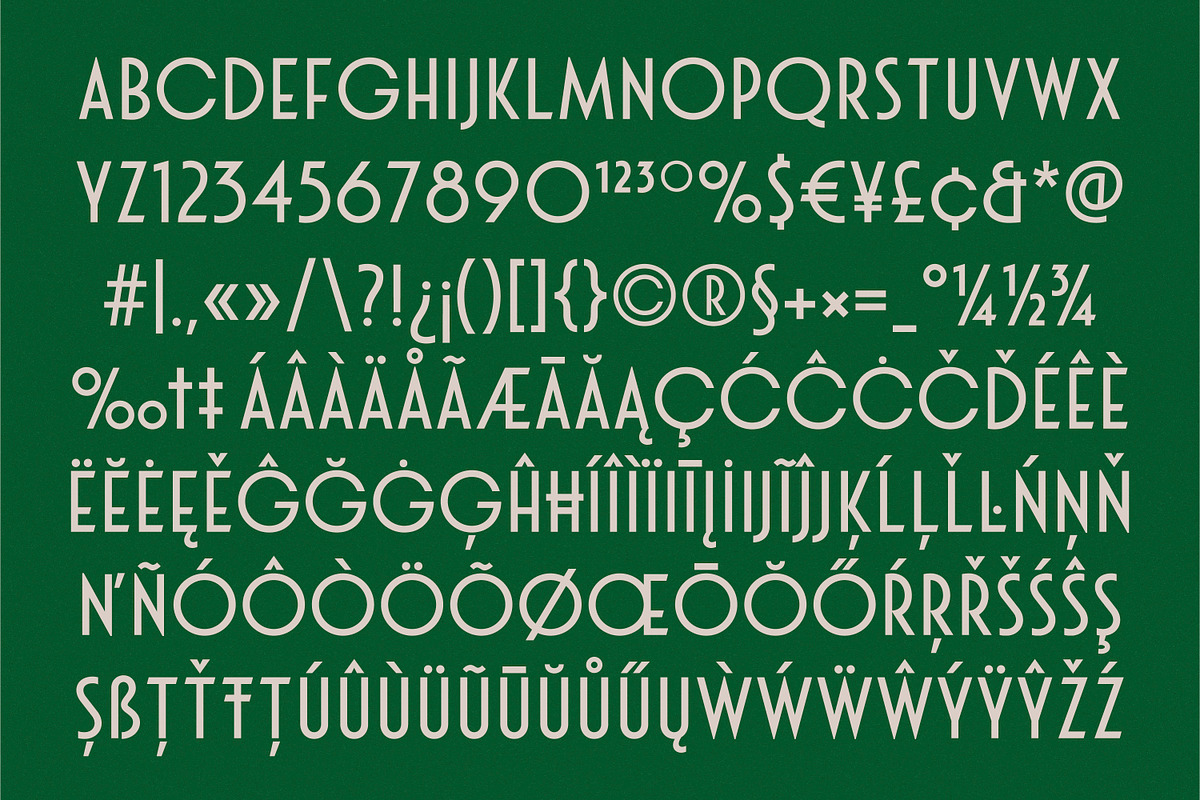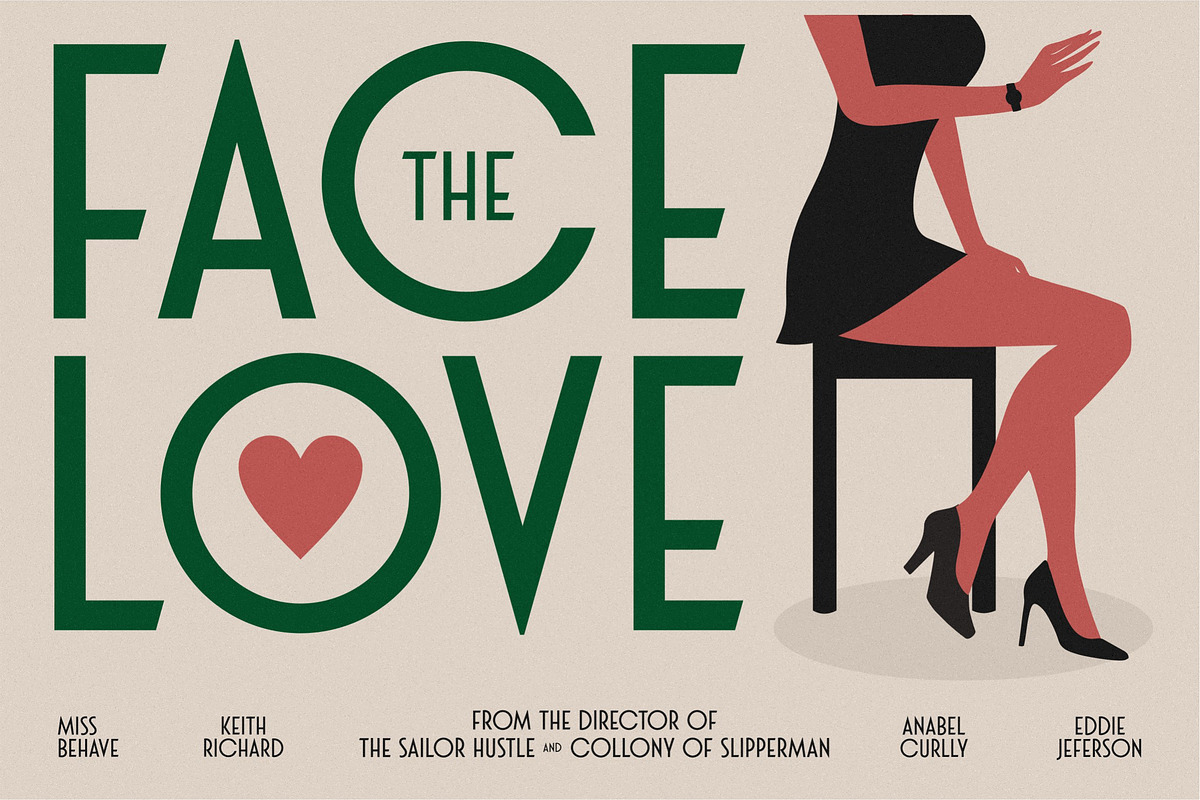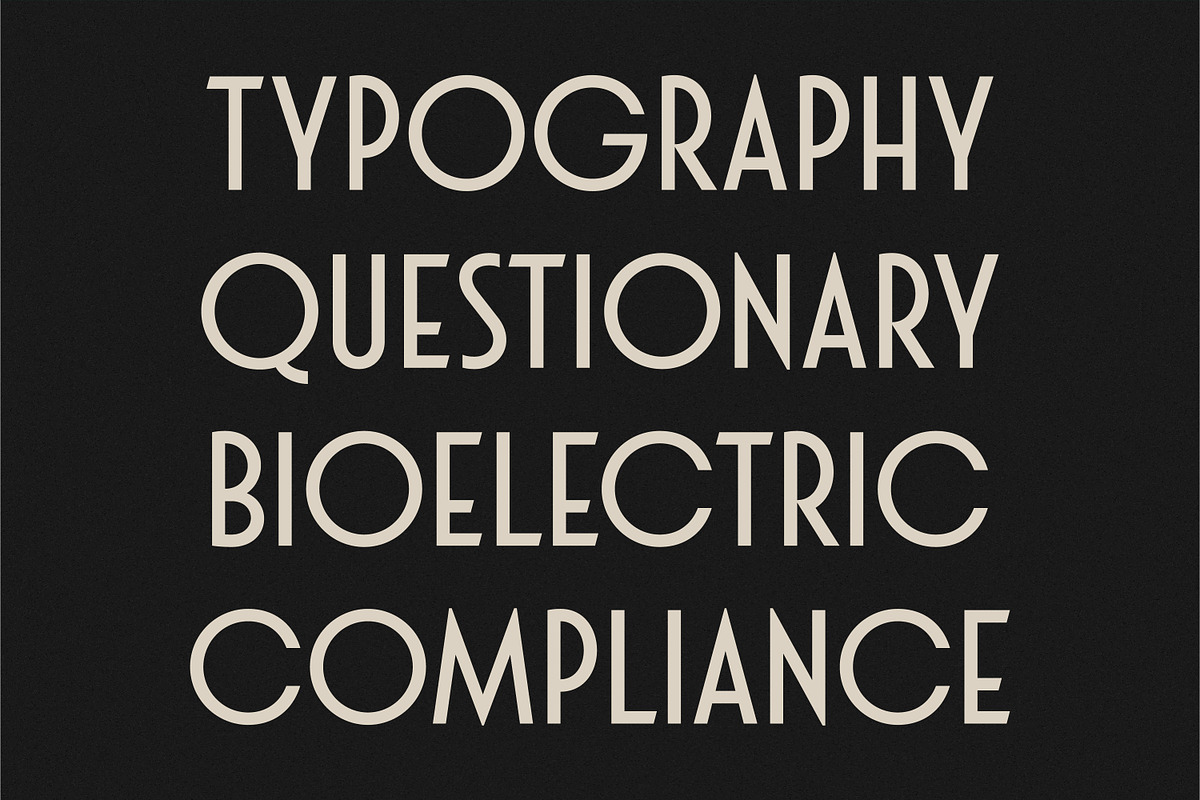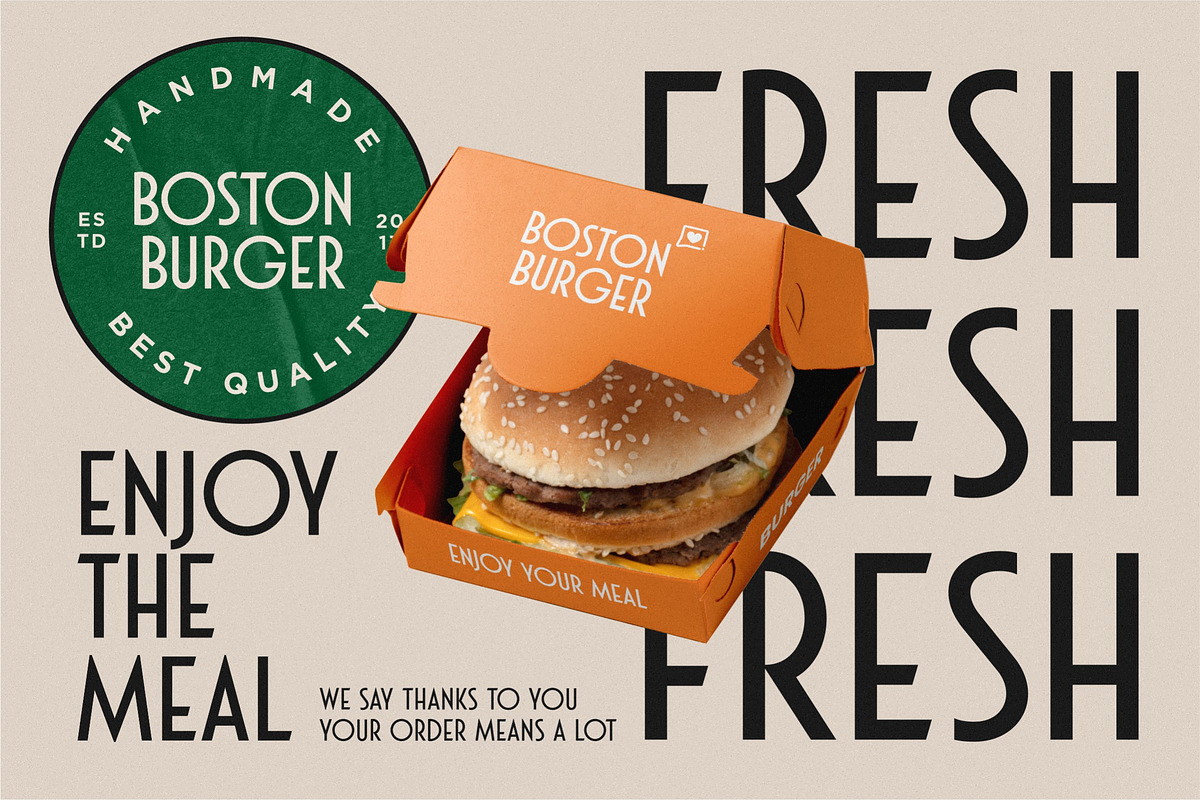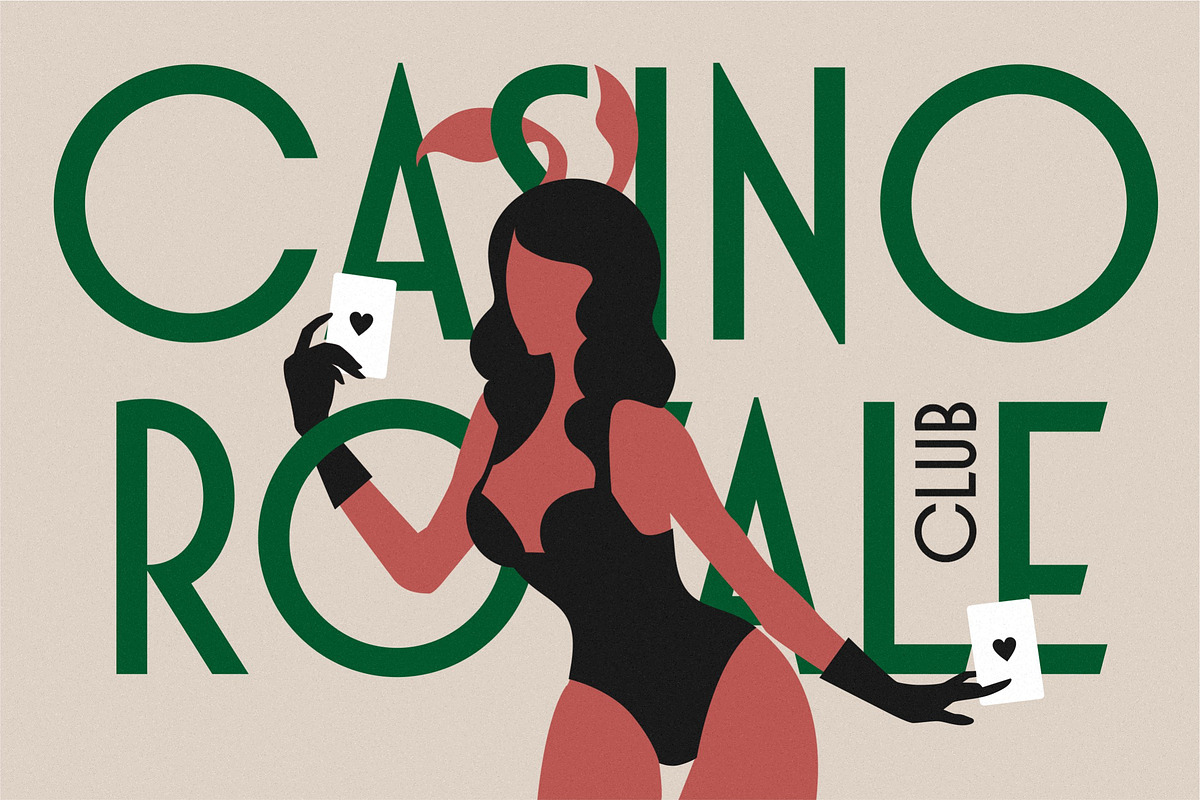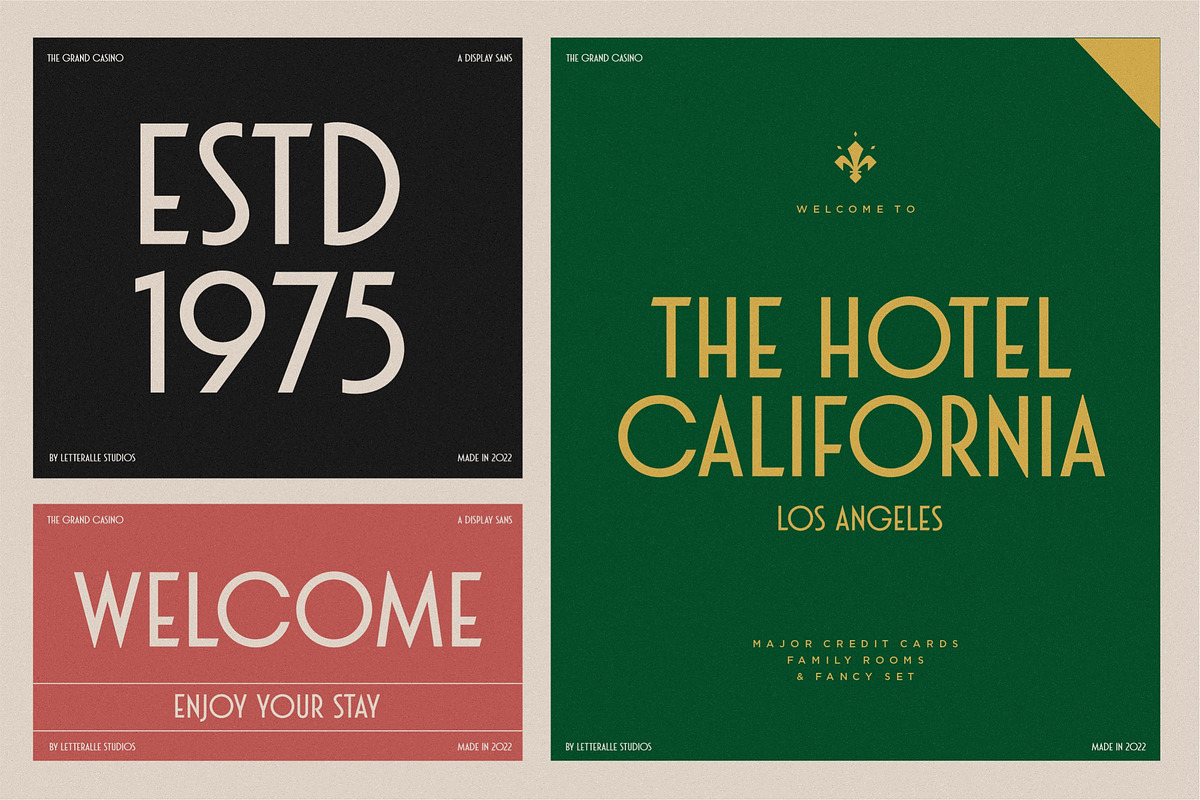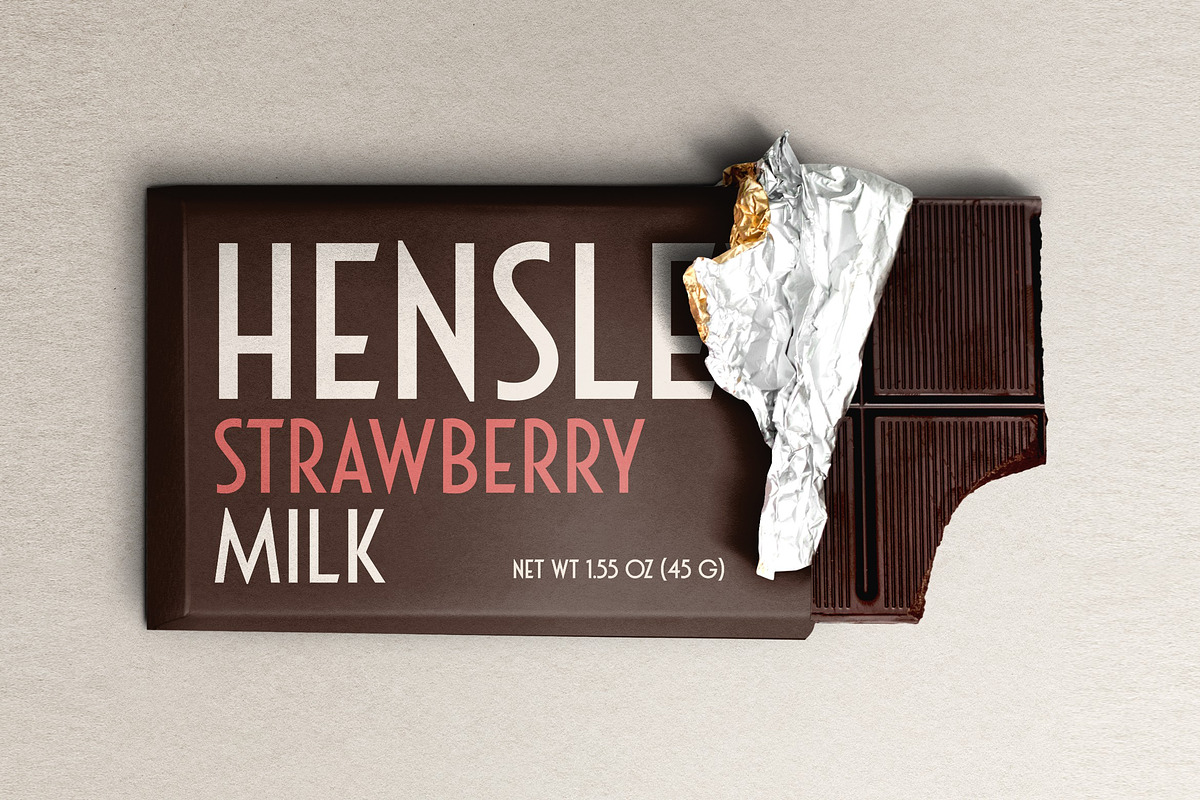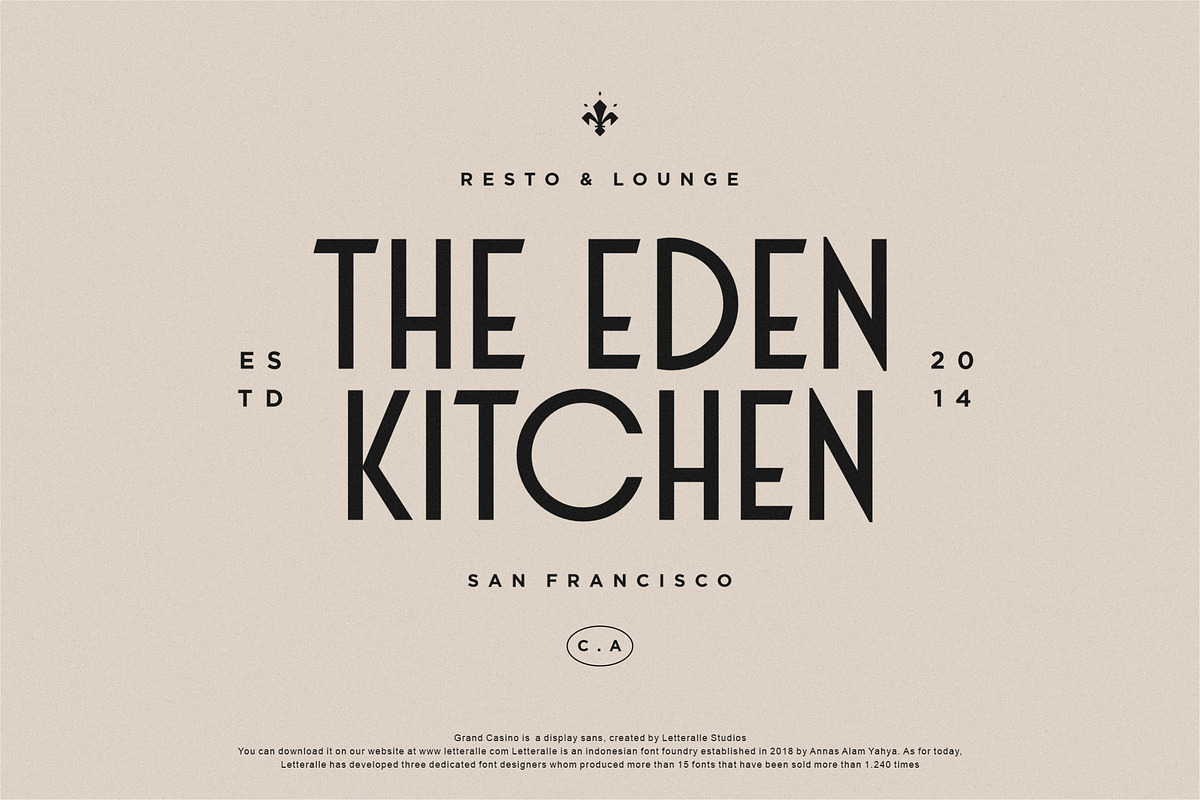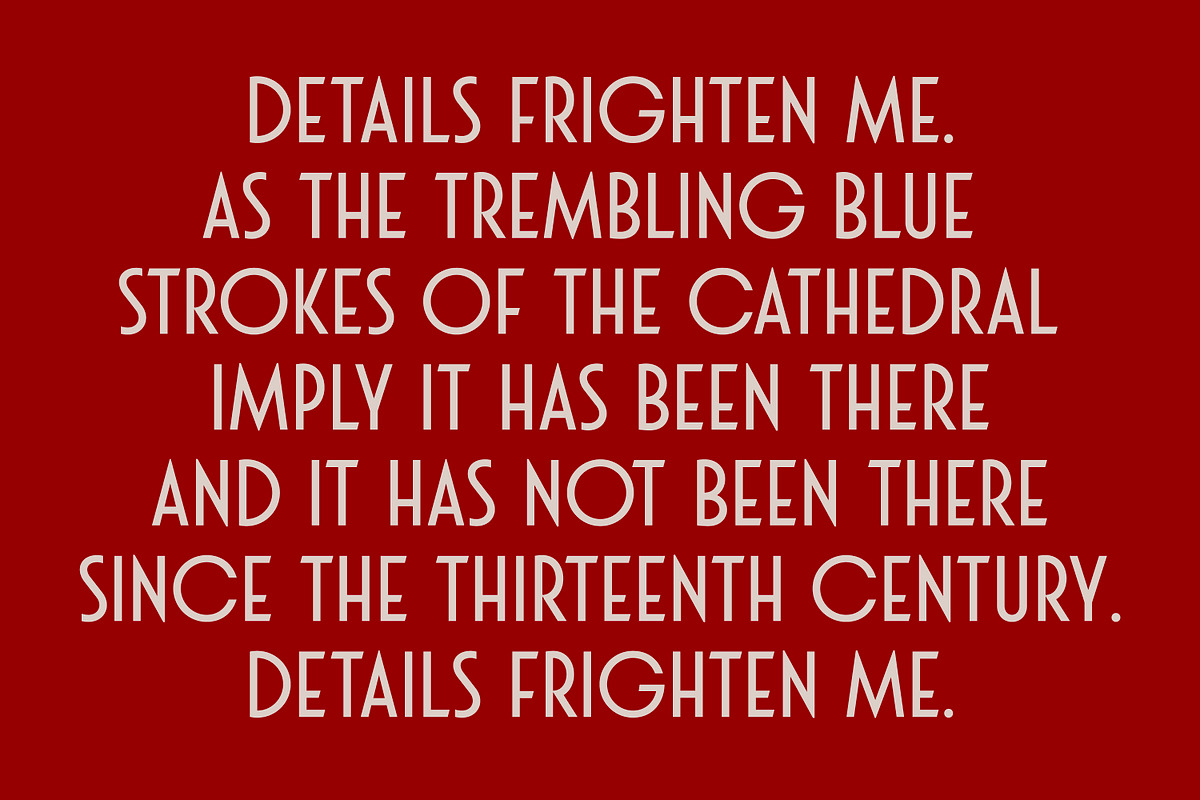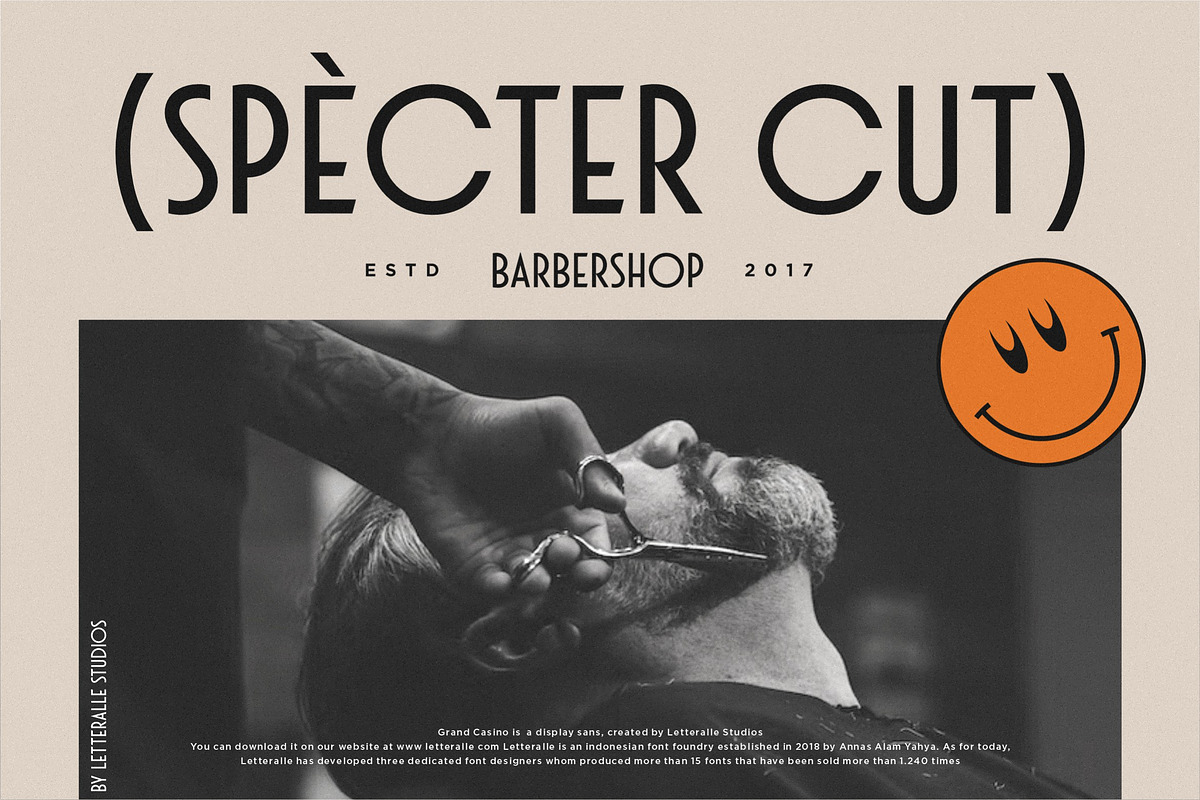
Grand Casino Display Sans
Grand Casino is an uppercase sans serif font with a retro and minimal style. Grand Casino covers all kind of graphic design projects.
- Ligatures.
- Numeral, Punctuation, Multilingual Accents.